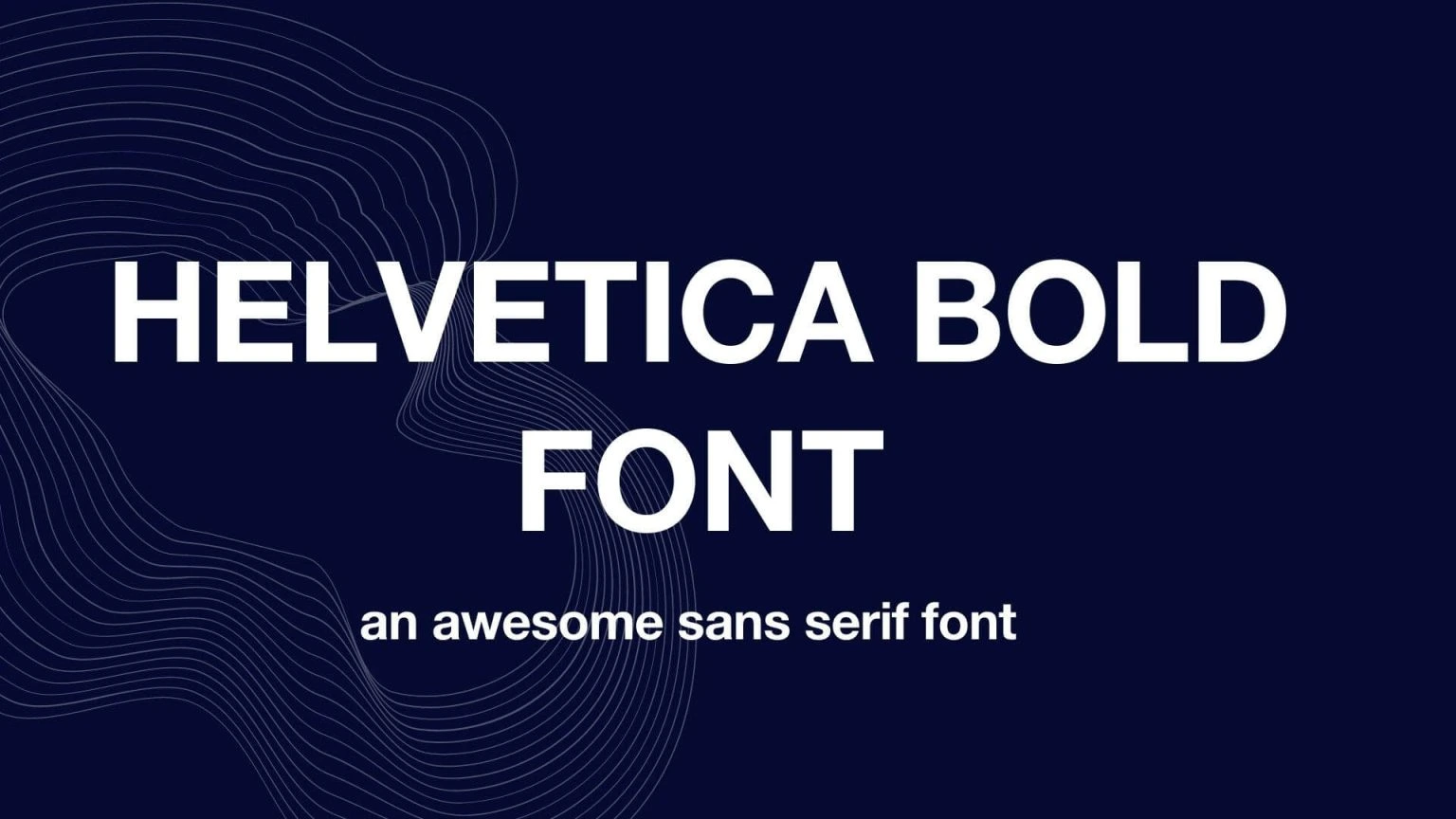
Helvetica Bold is a fantastic font that was created and first released by the Monotype font foundry. It belongs to the Helvetica font family, which can be utilized together.
It also have another family called helvetica neue can be used for any headings, on your internet site or anywhere else you need.
| Name | Helvetica Bold Font |
| Designer | Max Miedinger |
| Foundry | Linotype |
| Style | Sans-serif |
| Date Released | 1957 |